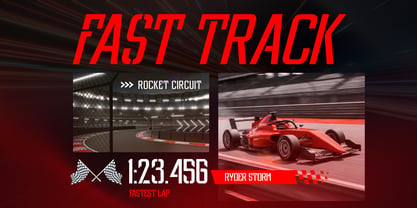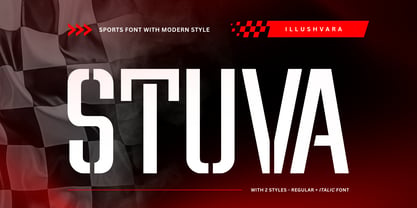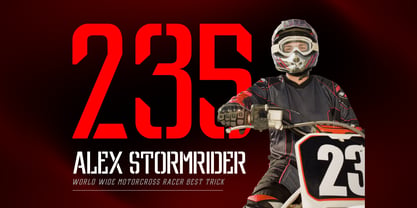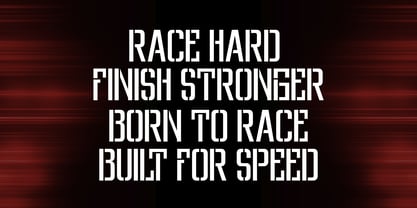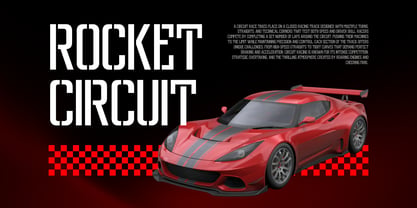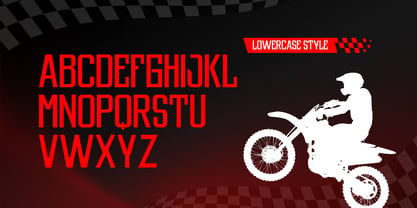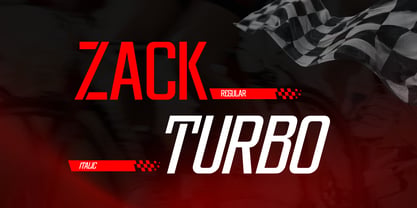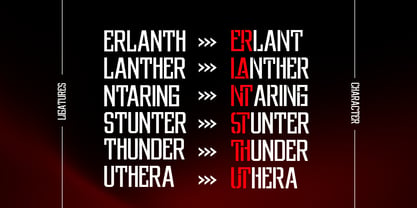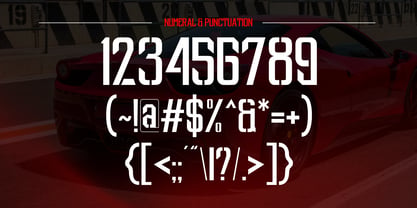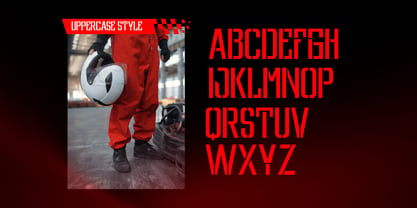
Stuva Sports
by Illushvara
The Stuva Sports Font Family was designed by Bayu Suwirya and published by Illushvara. Stuva Sports contains 2 styles and family package options. More about this family
Stuva Sports is a modern sans serif font designed to bring strong energy and bold style to any project. Built in an all-caps format with Regular and Italic styles, this typeface delivers a powerful and dynamic look perfect for sports, racing, and automotive designs. Stuva Sports also features many unique ligatures that create a sleek and futuristic feel. Ideal for logos, branding, posters, apparel, headlines, and modern sport identities, this font adds speed, strength, and character to your design.
Designers: Bayu Suwirya
Foundry: Illushvara